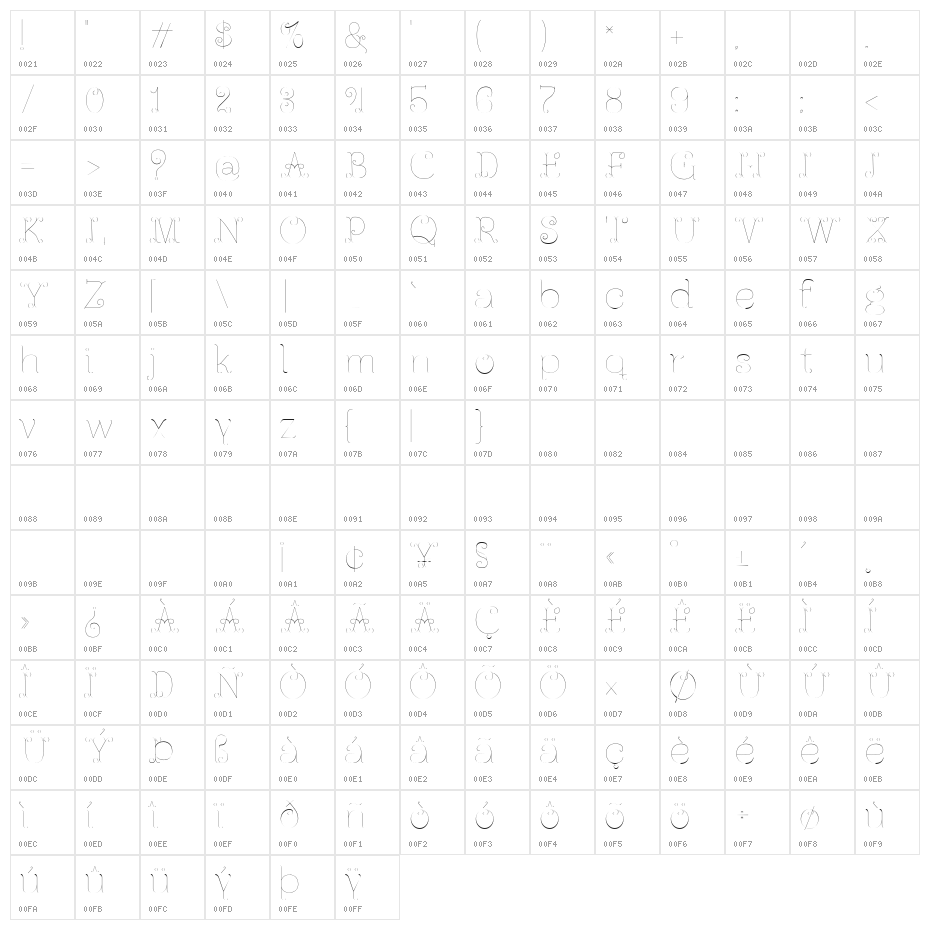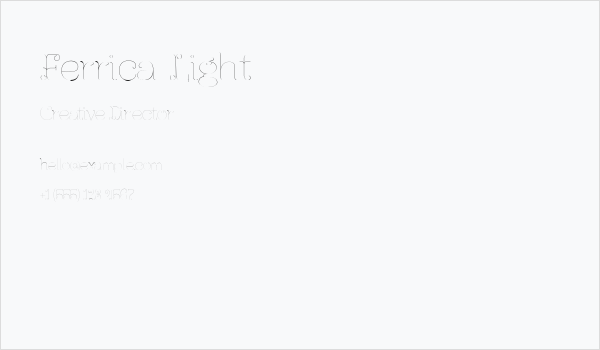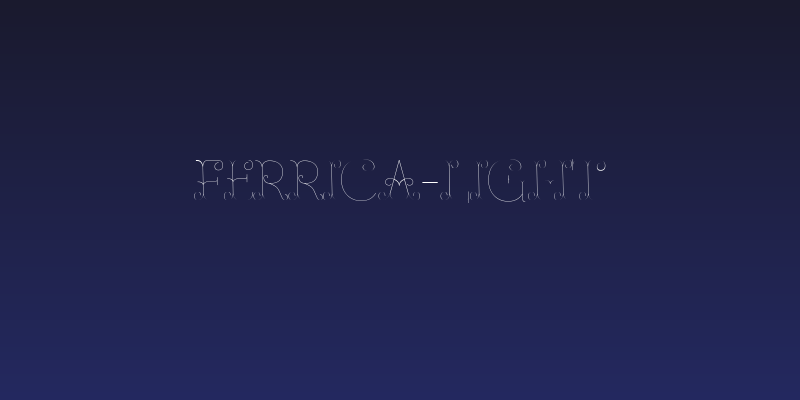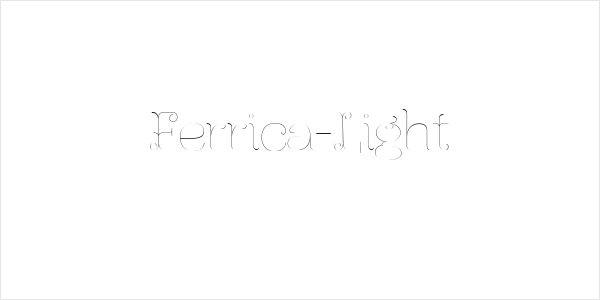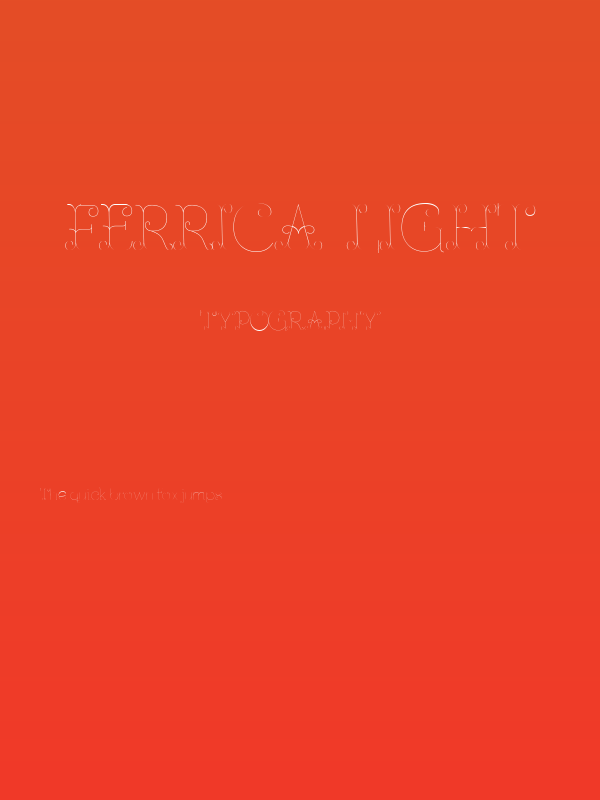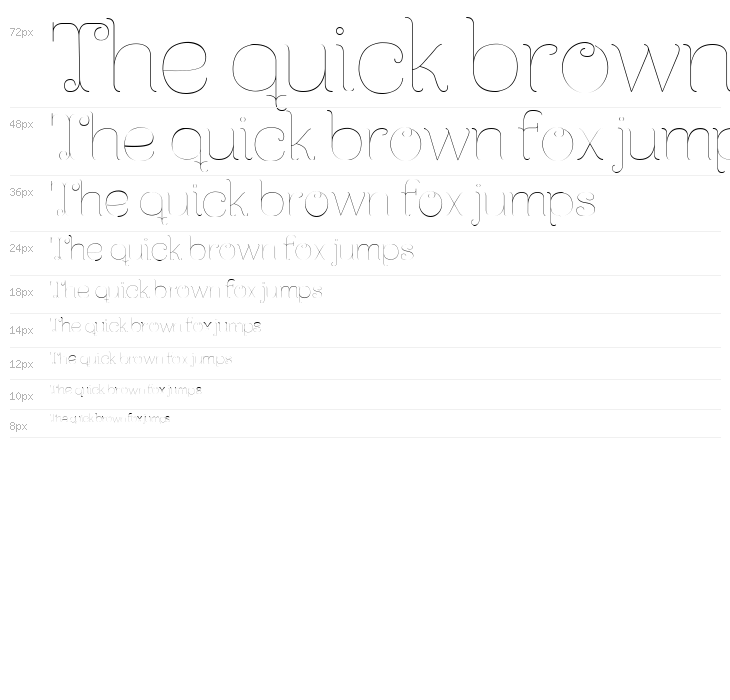
Ferrica-Light Font
Ferrica-Light Description
This font features a delicate and elegant design with thin, flowing lines and intricate curls at the ends of each character. The uppercase letters are particularly ornate, with loops and swirls that add a touch of sophistication. The lowercase letters maintain a more straightforward style, yet they complement the uppercase with their subtle curves. Numbers and special characters follow the same aesthetic, making the font cohesive and visually appealing. The overall look is airy and light, perfect for creating a refined and graceful impression.
| Use Case | Headlines, Invitations, Branding |
| Proposed Projects | Ideal for wedding invitations, luxury branding, elegant packaging, and high-end fashion magazines. |